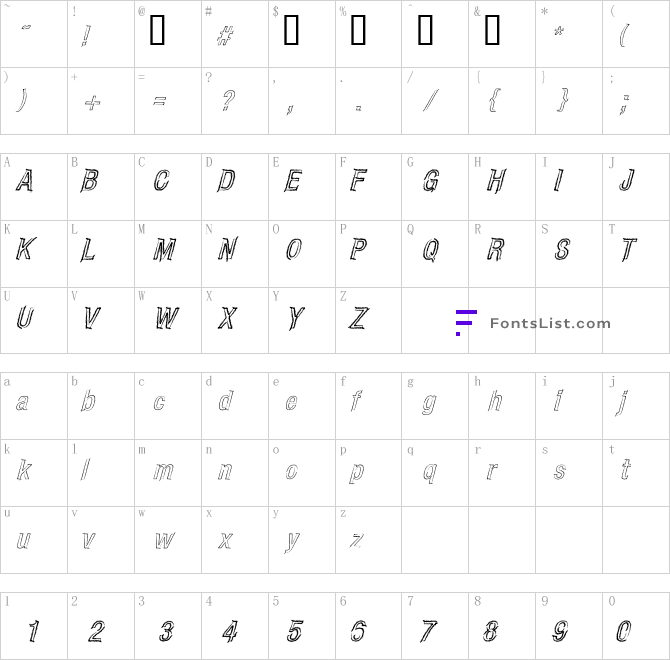
- Font Name:CARBONCILLO PALO
- Full Name:CARBONCILLO PALO Italic
CARBONCILLO-PALO-Italic.ttf is a very beautiful artistic font, CARBONCILLO-PALO-Italic.ttf is widely used in the design and printing of various books and pictures,CARBONCILLO-PALO-Italic.ttf has a strong visual impact,CARBONCILLO-PALO-Italic.ttf is a commonly used font in newspapers, magazines and books, and is used in posters, e-commerce Poster design, store design, logo design, font design and other fields.CARBONCILLO-PALO-Italic.